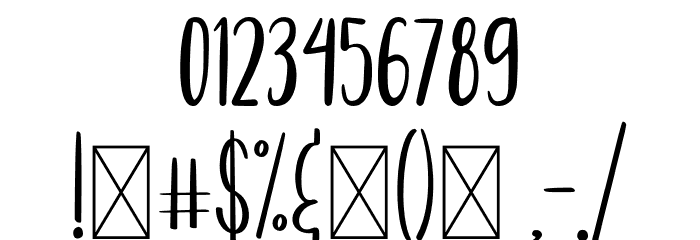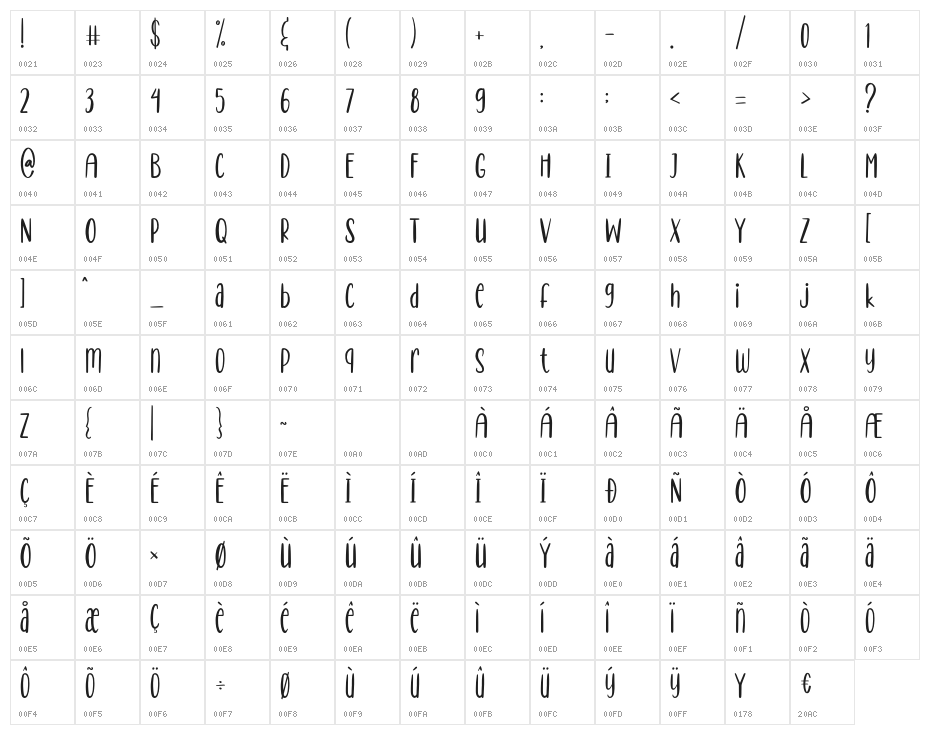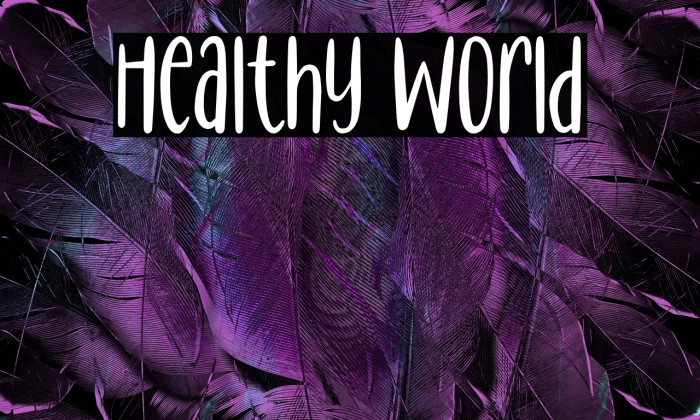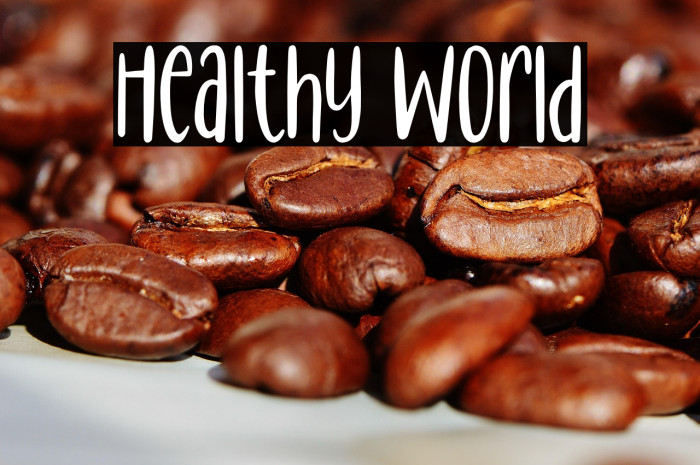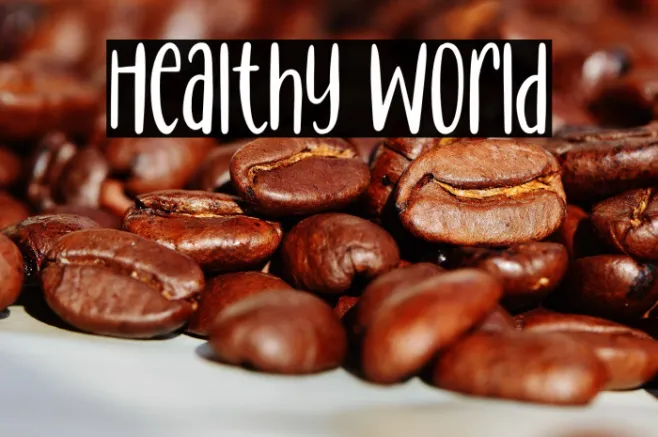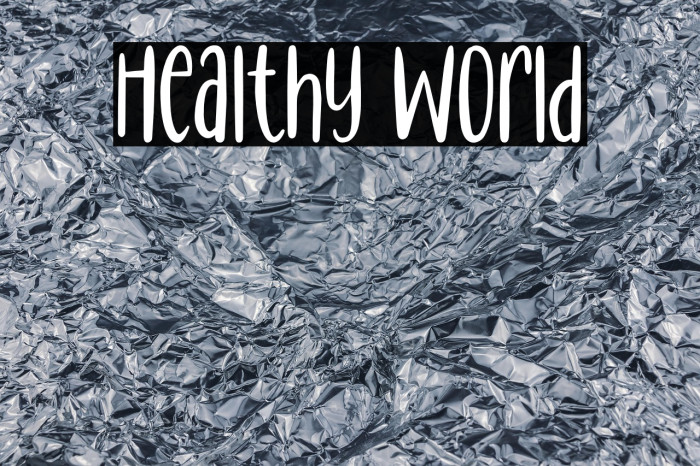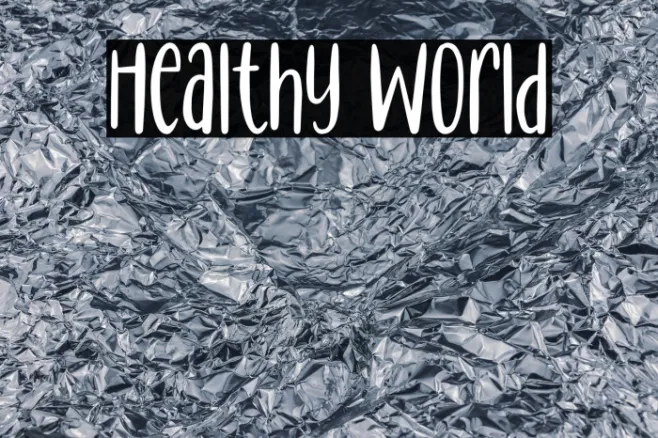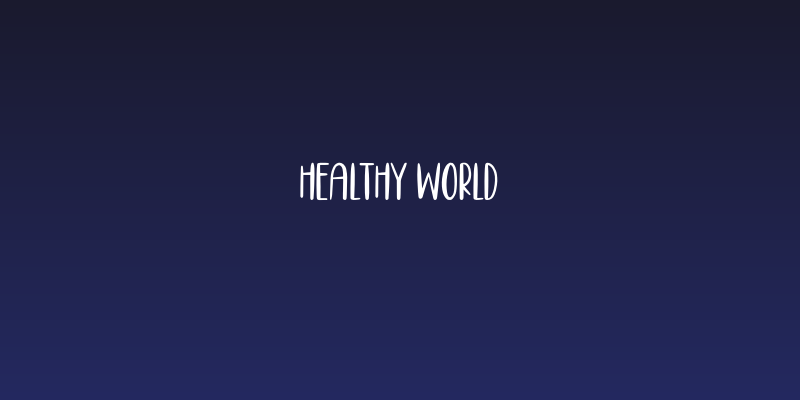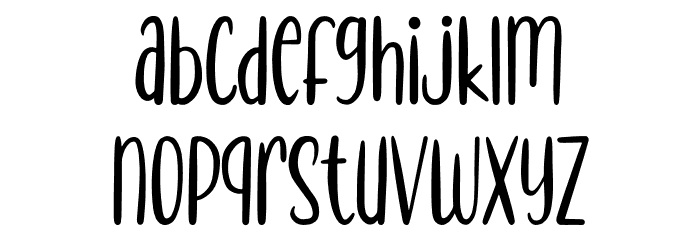
Healthy World Font
Healthy World Description
This font features a playful and casual handwritten style with smooth, rounded edges and a consistent stroke width. The characters are slightly elongated, giving them a tall and narrow appearance, which adds a touch of elegance and modernity. The uppercase and lowercase letters maintain a uniform style, with a slight slant that adds to the informal and friendly feel. The numerals are clear and easy to read, matching the overall aesthetic of the alphabet. Special characters are included, maintaining the same playful and approachable style. This font is versatile and can be used in various design projects that require a personal and inviting touch.
| Overall Style | Casual, Modern |
| Proposed Projects | Ideal for greeting cards, invitations, social media graphics, and branding materials that aim for a friendly and approachable look. |